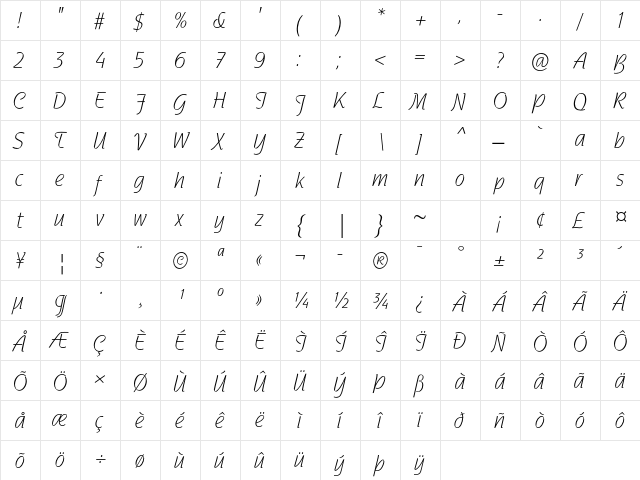
Agfa Nadianne Cond Std Book
Design Context for Agfa Nadianne Cond Std Typeface
Agfa Nadianne Cond Std is a composed and adaptable typeface that performs quietly and consistently across a wide range of design contexts. The condensed width makes it efficient for tight spaces without sacrificing legibility.